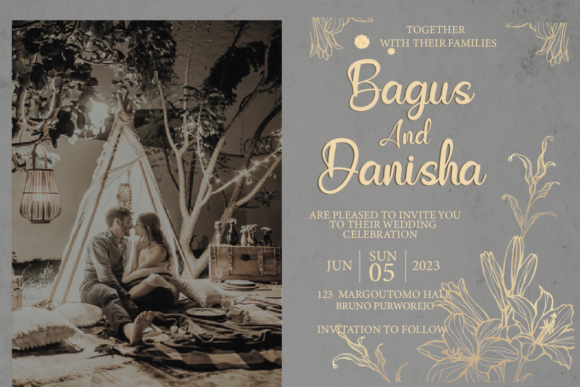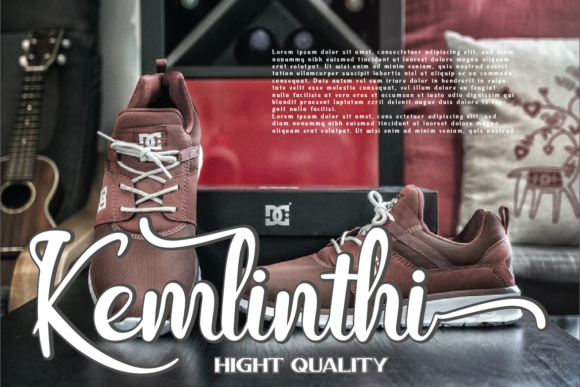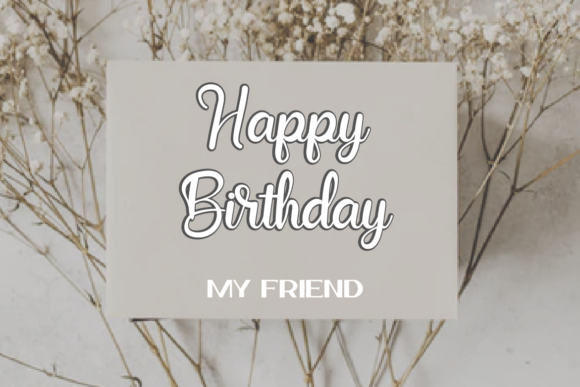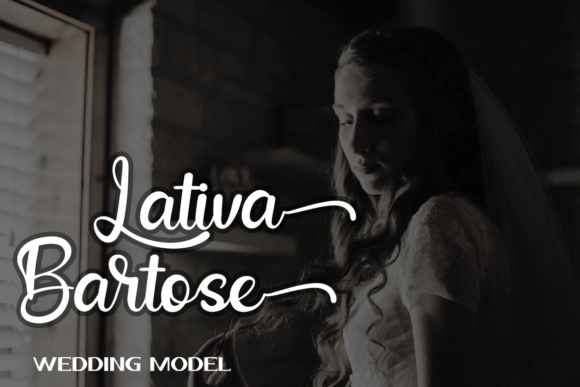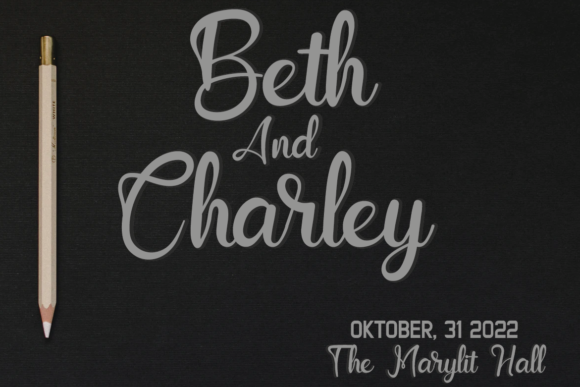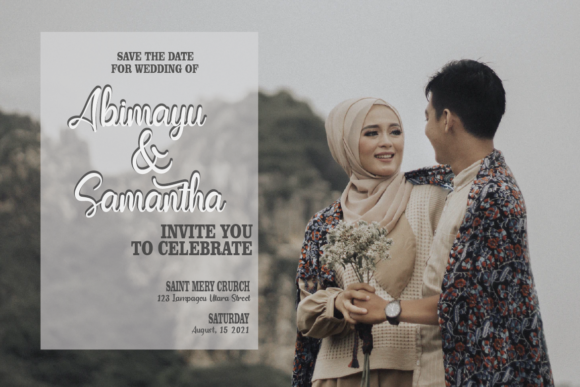
Introduction to Kemabluk Font
Kemabluk is a well-balanced and delicate script font that exudes elegance and class.
This font was particularly crafted for those who need a beautiful and refreshing look to their designs Kemabluk is PUA encoded which means you can access all of the amazing glyphs and ligatures with ease.
Kemabluk Font offers exceptional quality and versatility, making it a valuable addition to your design toolkit. Whether you’re creating for personal projects or commercial use, Kemabluk Font delivers professional results.